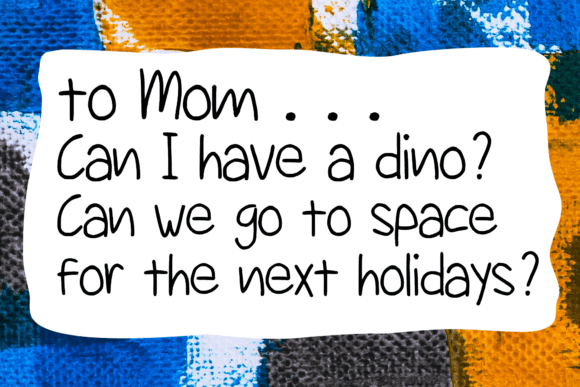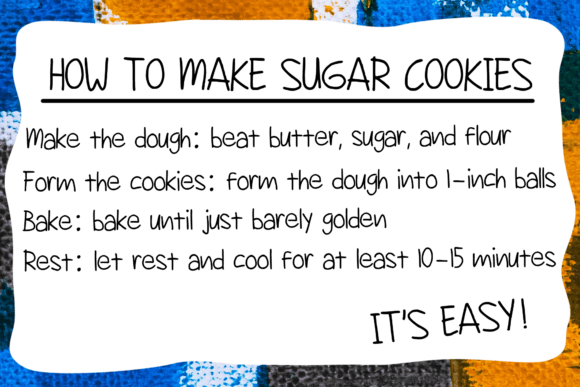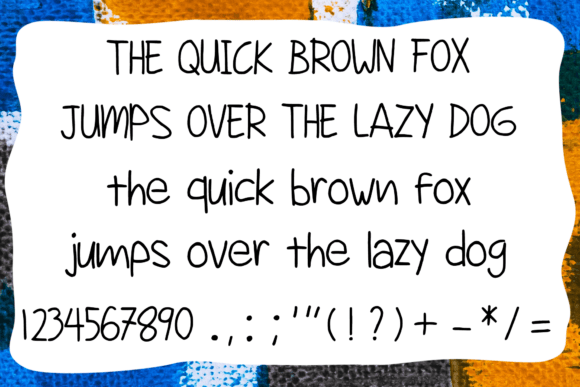
Guerilla Handwriting Font
About the Guerilla Handwriting Font
Discover the charm of Guerilla Handwriting Font. This font is a perfect blend of modern aesthetics and classic appeal. Guerilla Handwriting is a versatile thin handwritten font you can use for anything. It will elevate a wide range of design projects to the highest level. You can use this font for many design ideas such as stickers, t-shirt designs, amazing logo designs, magazine or book covers, comics, cartoon drawings, and many more. This font will add a super cool touch to your designs!
Guerilla Handwriting’s thin strokes and informal style excel in headlines, short taglines, and branding elements where a hand-drawn feel adds personality. It’s ideal for projects needing a youthful, rebellious edge—think streetwear brands, music posters, or comic book titles. Avoid using it for large blocks of text or UI elements; its thin weight compromises readability in body copy.
Pairing it with a clean sans-serif like Montserrat or a geometric sans-serif like Futura creates a strong contrast, balancing the informality of Guerilla Handwriting with a modern, structured element. For a more playful feel, consider pairing it with a rounded sans-serif font such as Bebas Neue.
The font projects a bold, slightly rebellious, and undeniably youthful energy. Its informal nature makes it unsuitable for formal settings or projects requiring high readability in extended text.
Guerilla Handwriting Font Usage Examples
Guerilla Handwriting Font Example